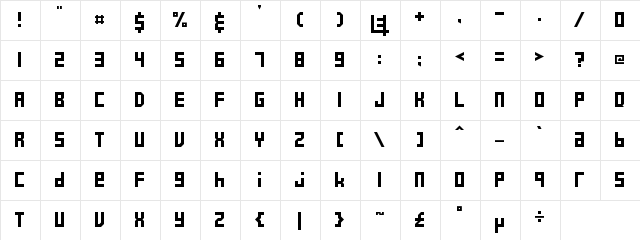
E4 2017 Regular
| Designer | 178Ulysees |
Design Context for E4 2017 Typeface
E4 2017 offers clean, dependable letterforms without strong stylistic allegiance, making it a practical choice for designers who need flexibility.